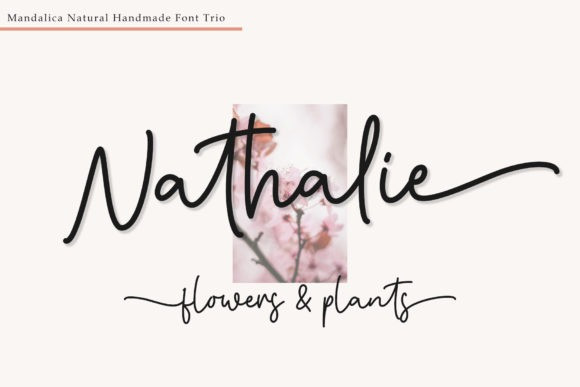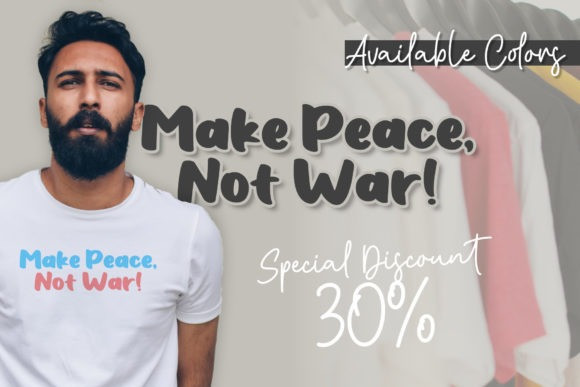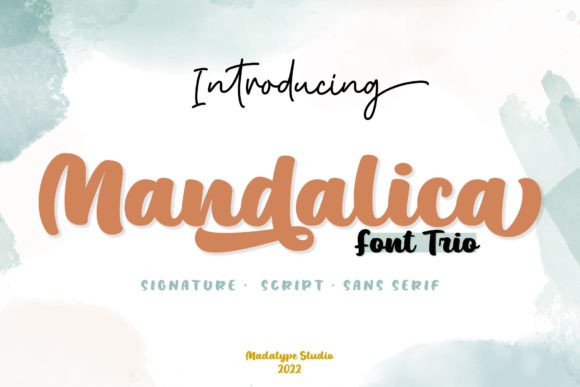
Mandalica Font
Mandalica Font is stylish, cute, and playful handwritten trio font. It is PUA encoded which means you can access all of the glyphs and swashes with ease! The lively characters will surely make your next project an eye-catcher!